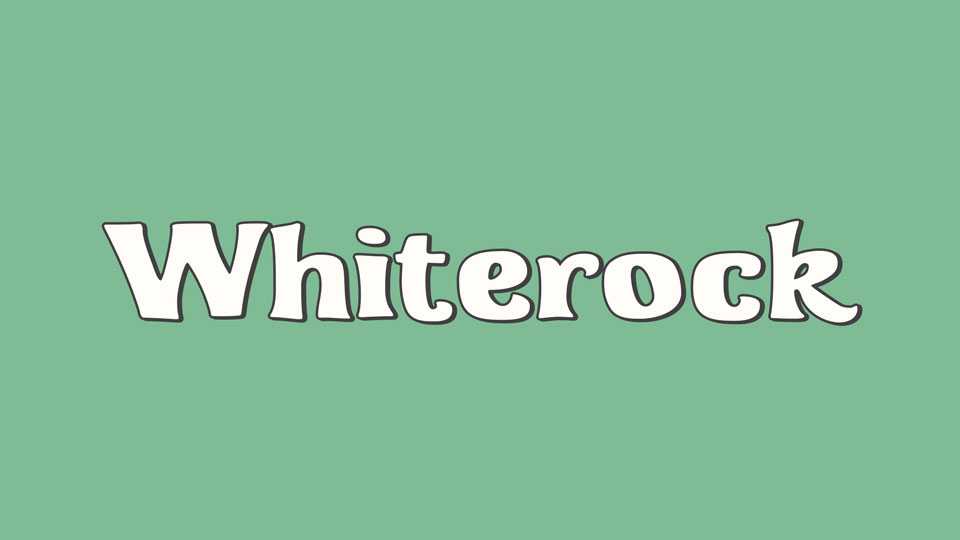
Download Whiterock font, a warm and organic serif typeface that effortlessly blends elegance with a natural, flowing feel with a welcoming, relaxed vibe.
Designer: Typodermic Fonts